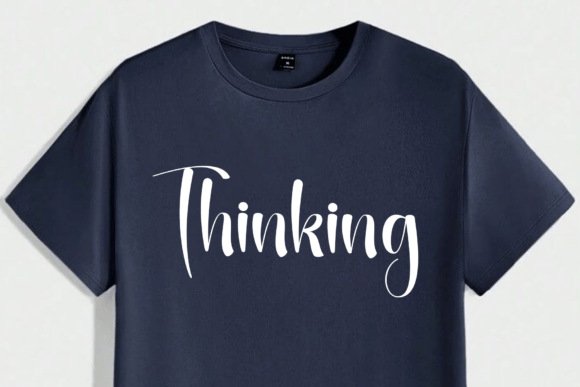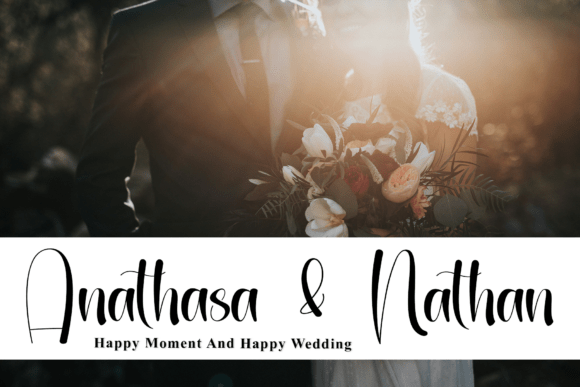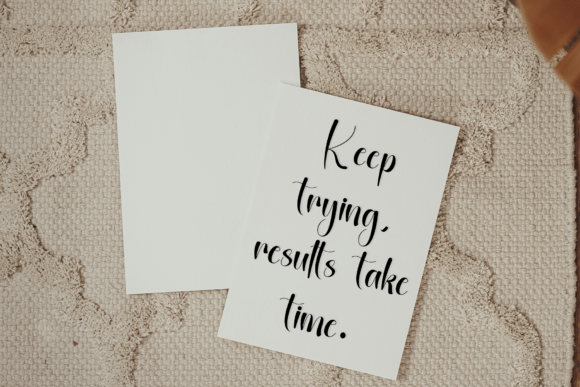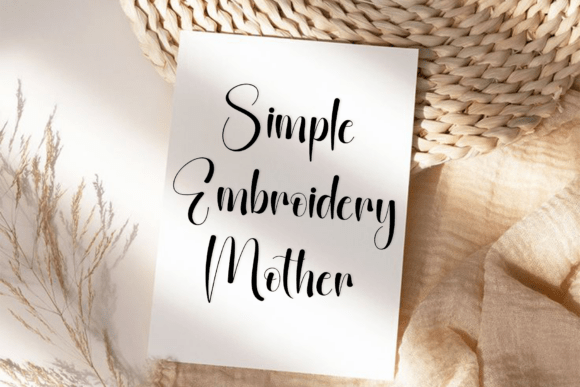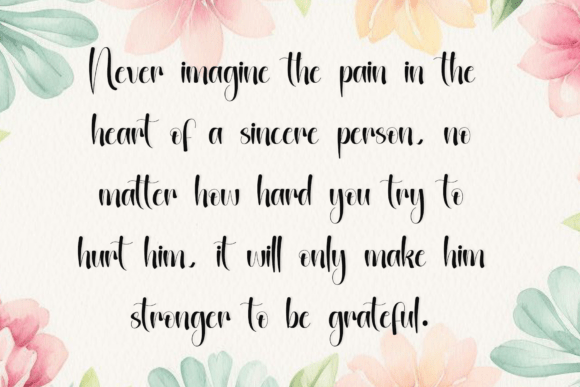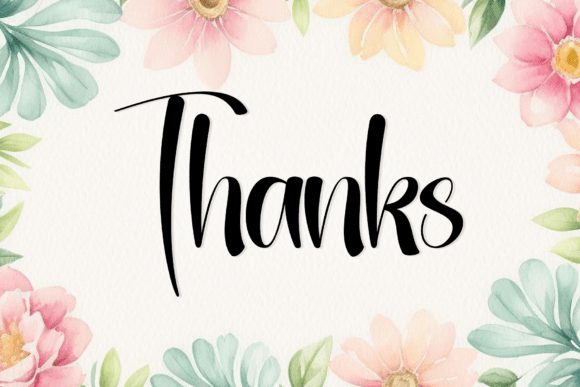
Introducing Bigboy Font: Elevate Your Designs with Elegance and Sophistication
In the world of typography, a well-crafted font can make all the difference in elevating your design to new heights. If you’re a designer or crafter looking for a typeface that exudes luxury, sophistication, and modernity, look no further than Bigboy Font. This elegant and fluid handwritten script font is designed to capture the essence of high-end design, making it perfect for a variety of applications, from luxury wedding stationery to sophisticated lifestyle photography overlays.
The Characteristics of Bigboy Font
Bigboy Font boasts a range of characteristics that set it apart from other typefaces. Its fluid, handwritten script style gives it a sense of elegance and sophistication, while its modern design ensures it remains fresh and contemporary. The font’s clean lines, subtle curves, and carefully crafted letterforms create a sense of luxury and refinement, making it perfect for designs that require a high level of sophistication.
Perfect for Luxury Wedding Stationery and Intimate Event Branding
When it comes to wedding stationery and event branding, the right font can make all the difference. Bigboy Font is specifically designed to add a touch of luxury and sophistication to these types of designs. Its elegant script style and modern aesthetic make it perfect for:
- Luxury wedding invitations and stationery
- Intimate event branding, such as anniversaries, baby showers, and birthday parties
- High-end event signage and decor
Ideal for High-End Editorial Signatures and Lifestyle Photography Overlays
Bigboy Font is not just limited to wedding stationery and event branding. Its sophisticated design also makes it perfect for high-end editorial signatures and lifestyle photography overlays. Use it to add a touch of elegance to:
- Editorial spreads in luxury lifestyle magazines
- Fashion and beauty photography overlays
- High-end product branding and packaging
Why Choose Bigboy Font?
So why choose Bigboy Font over other typefaces? Here are just a few reasons:
- Elegance and sophistication: Bigboy Font exudes luxury and refinement, making it perfect for high-end designs.
- Modernity: Its clean lines and subtle curves ensure it remains fresh and contemporary.
- Versatility: Use it for a range of applications, from wedding stationery to lifestyle photography overlays.
- Easy to read: Despite its elegant script style, Bigboy Font remains easy to read, even in smaller sizes.
Tips for Using Bigboy Font
To get the most out of Bigboy Font, here are a few tips:
- Use it sparingly: Bigboy Font is designed to make a statement, so use it sparingly to add emphasis to key words or phrases.
- Pair it with contrasting fonts: Pair Bigboy Font with contrasting fonts to create visual interest and add depth to your design.
- Experiment with different sizes: Don’t be afraid to experiment with different sizes to add hierarchy and emphasis to your design.
In conclusion, Bigboy Font is a versatile and sophisticated typeface that is perfect for designers and crafters looking to elevate their designs. Its elegant and fluid handwritten script style, combined with its modern aesthetic, make it perfect for a range of applications, from luxury wedding stationery to high-end editorial signatures. With its ease of use, versatility, and sophisticated design, Bigboy Font is sure to become a go-to typeface in your design arsenal.